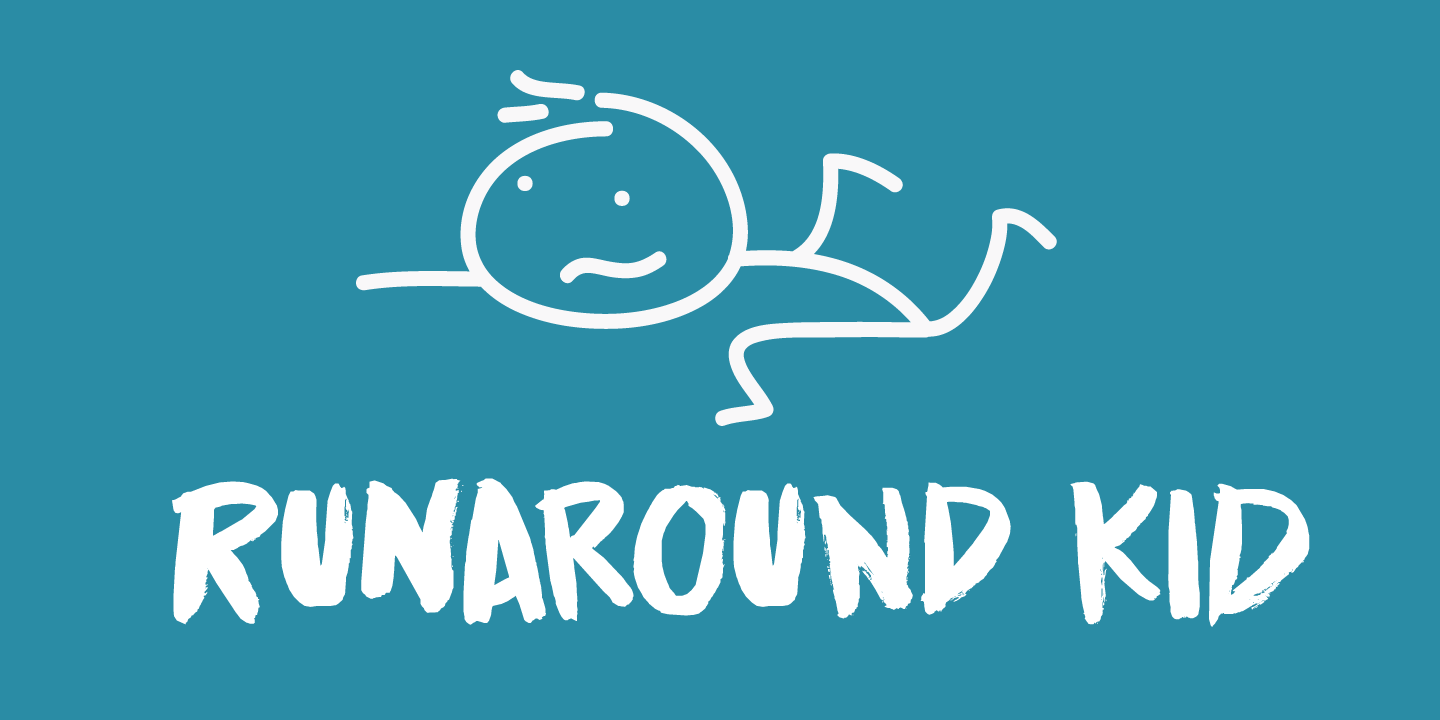
Runaround Kid Font is perfect for children's book covers, playful toy packaging, kids' party invitations, nursery wall decals, educational game designs, youth sports team logos, family-friendly restaurant menus, children's clothing brands, playground signage, and fun learning materials that require a cheerful and energetic child-friendly aesthetic.
What makes Runaround Kid Font so exciting is its vibrant playful character that perfectly captures the essence of childhood joy and boundless energy. This remarkable typeface features bouncy letterforms with whimsical curves and animated details that evoke the spirit of playground adventures and carefree fun. The font's carefully crafted characteristics include lively proportions and cheerful angles that give your designs an unmistakably joyful appearance, making it an ideal choice for designers who want to convey happiness, playfulness, and youthful excitement in their work.
Runaround Kid Font comes in multiple font families including Regular, Bold, Light, Italic, Bold Italic, Rounded, Outline, and Shadow variations. Each family member maintains the distinctive playful aesthetic while offering different weights and styles to suit various child-focused design needs. The complete font family provides designers with extensive flexibility for creating cohesive kid-friendly brand identities and diverse typographic hierarchies that maintain their energetic appeal.
For designers seeking authentic playful typography, Runaround Kid Font Free Download offers an exceptional solution that brings the timeless appeal of childhood wonder and playful aesthetics to modern digital projects. This versatile typeface works beautifully in both large display sizes and smaller text applications, making it suitable for everything from exciting children's headlines to fun body text. The font's unique character makes it particularly effective for brands that want to convey joy, energy, and child-friendly appeal.
Whether you're working on children's brand campaigns, educational material designs, family entertainment promotions, or youth-focused content, Runaround Kid Font delivers the perfect balance of readability and playful character. Its distinctive kid-inspired design elements help create memorable brand experiences that delight young audiences and capture the magic of childhood.
The font's versatility extends beyond traditional print applications, working equally well in digital environments where playful aesthetics are desired. From website headers to social media graphics, Runaround Kid Font maintains its cheerful appeal across all media formats, ensuring consistent brand presentation throughout your child-focused design projects.